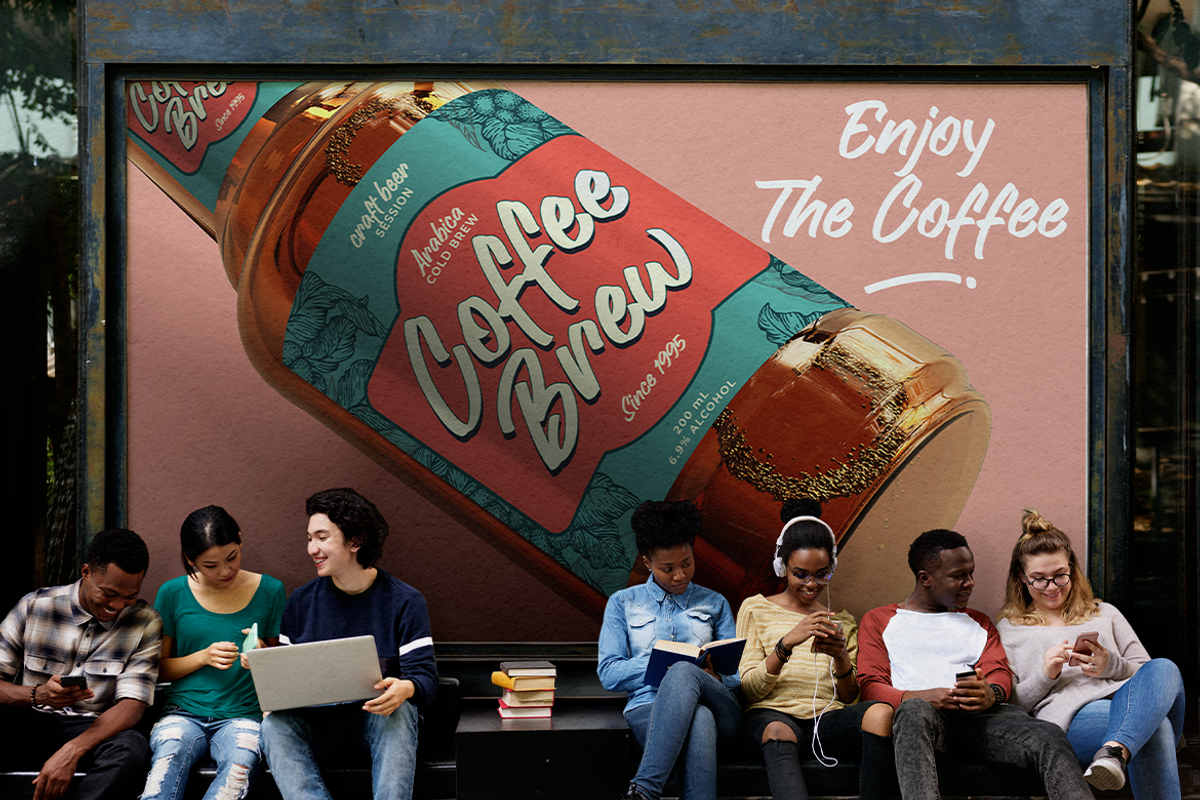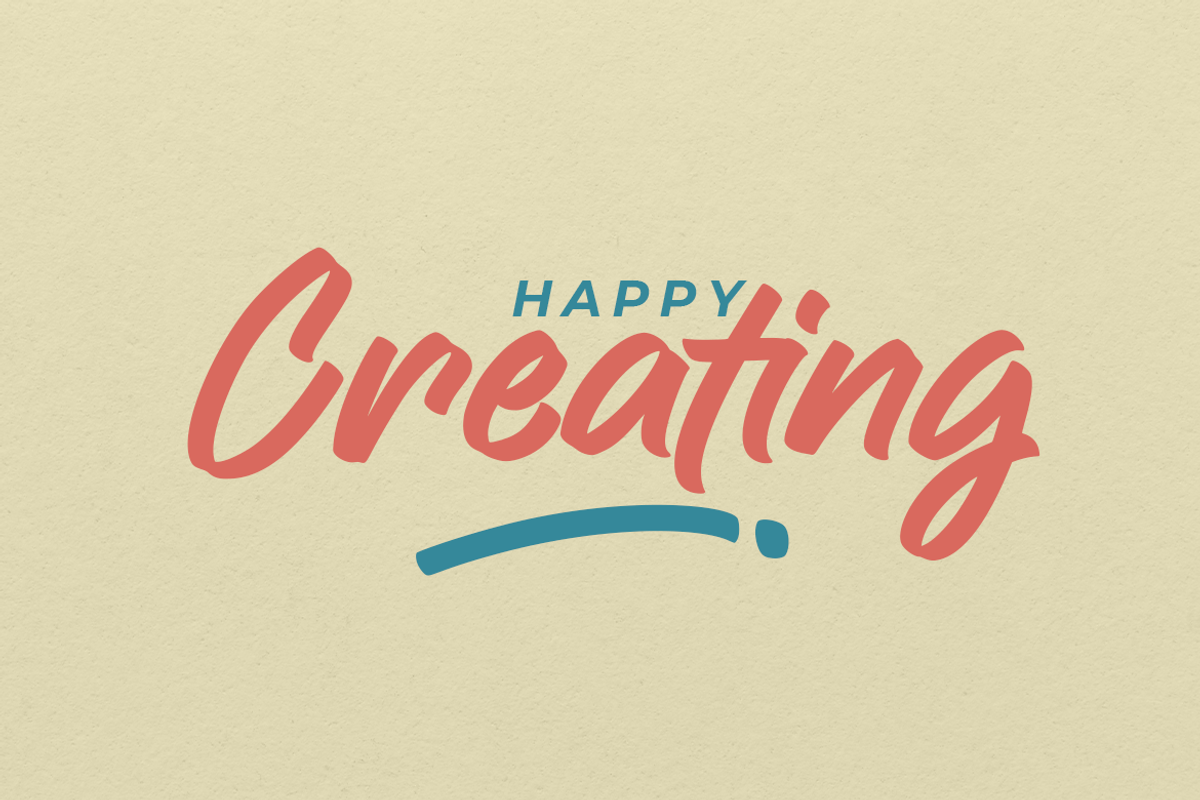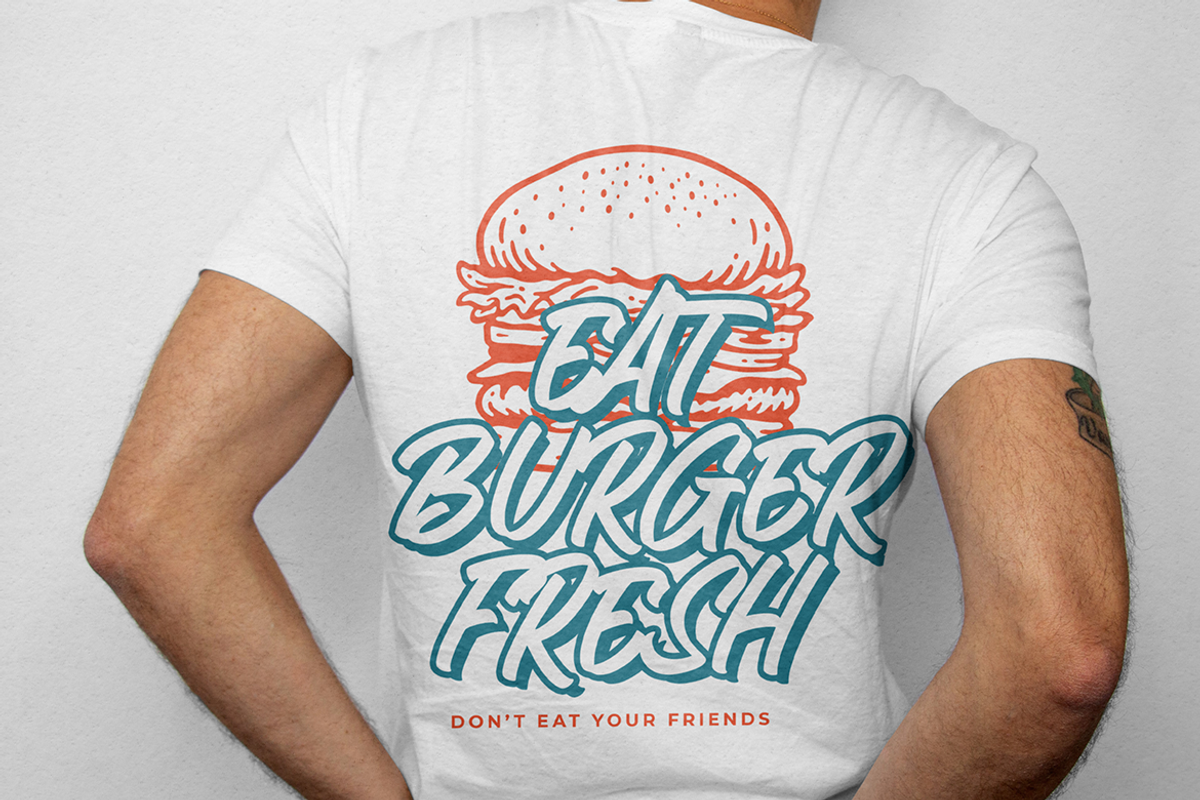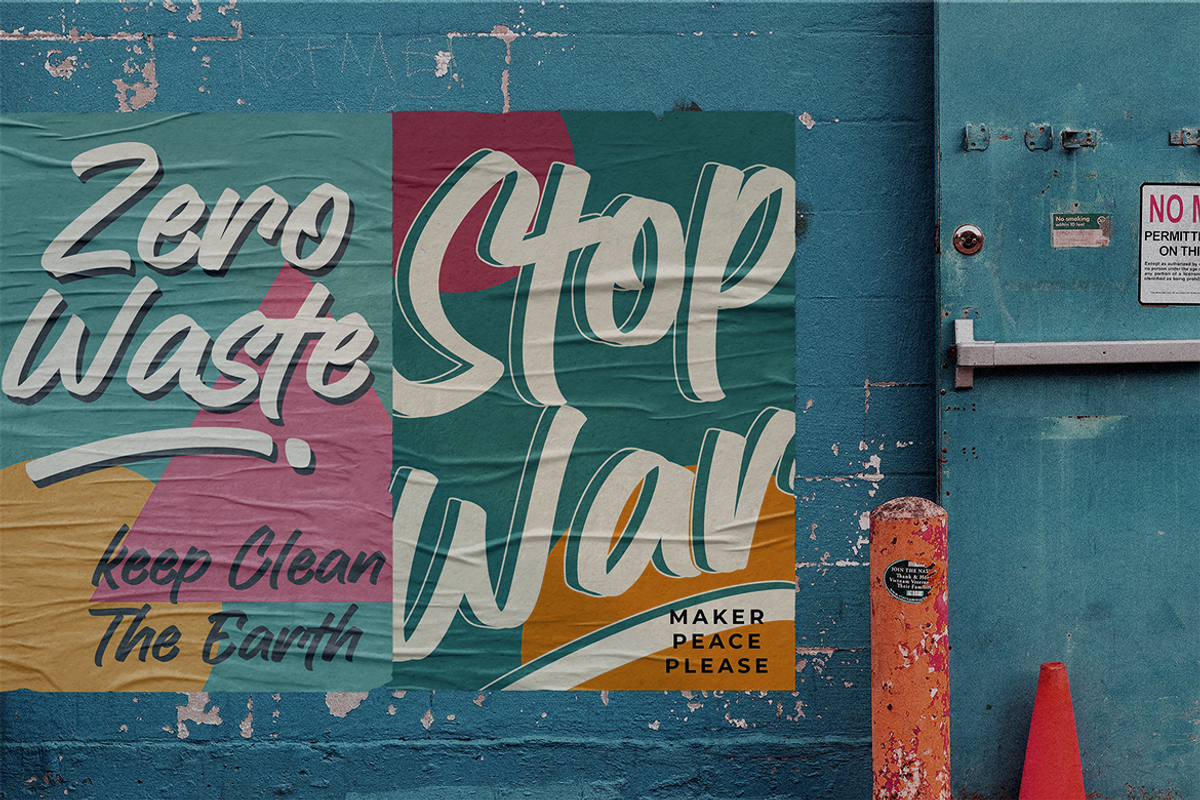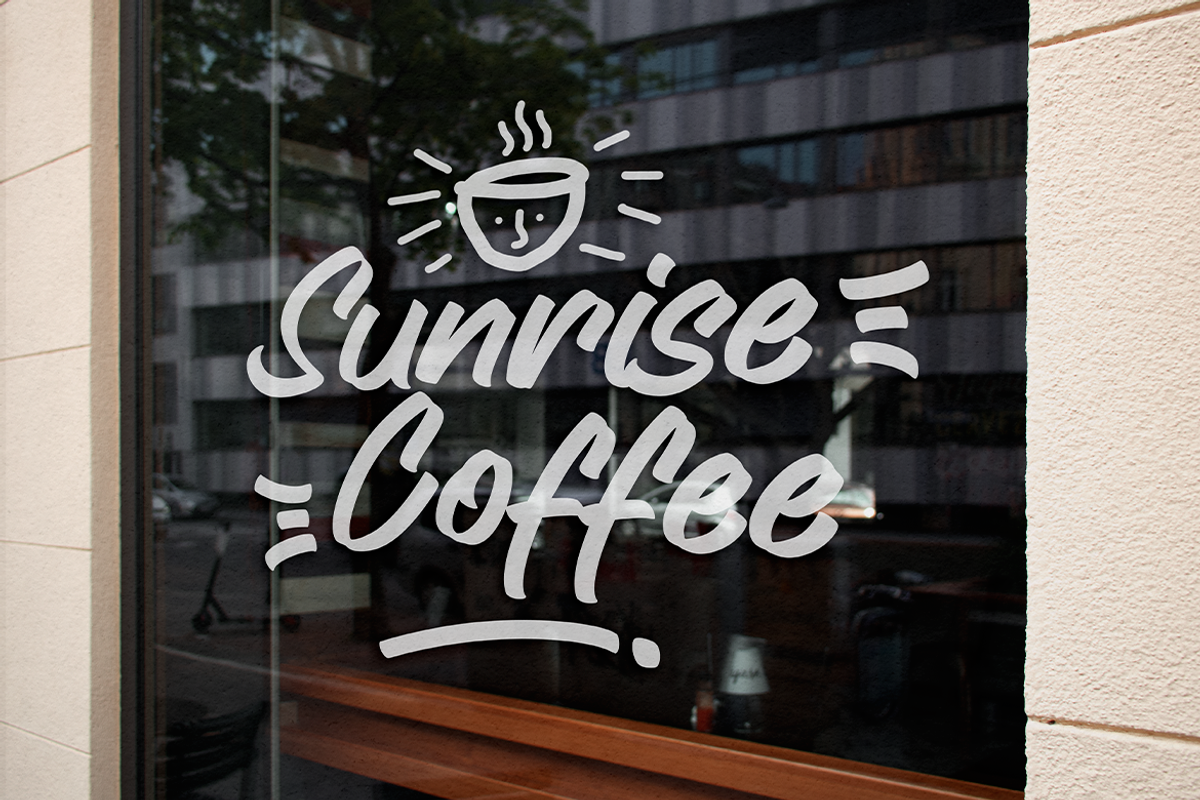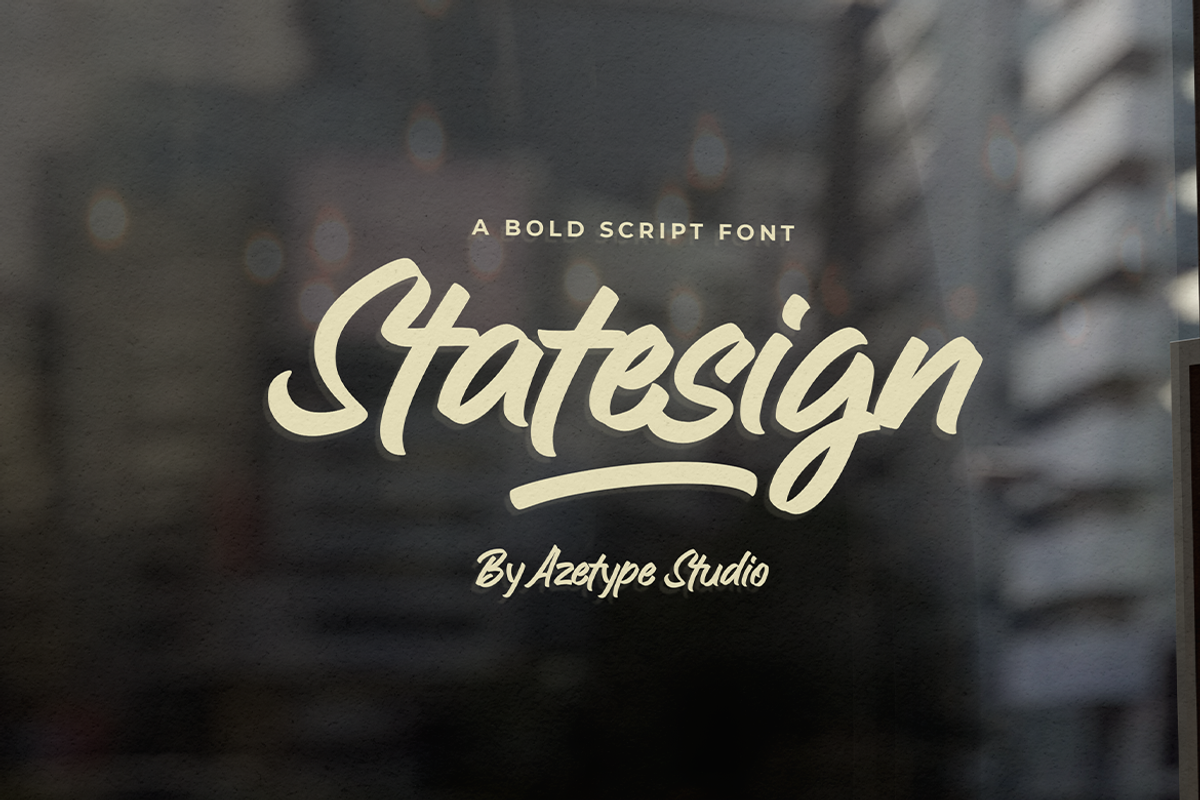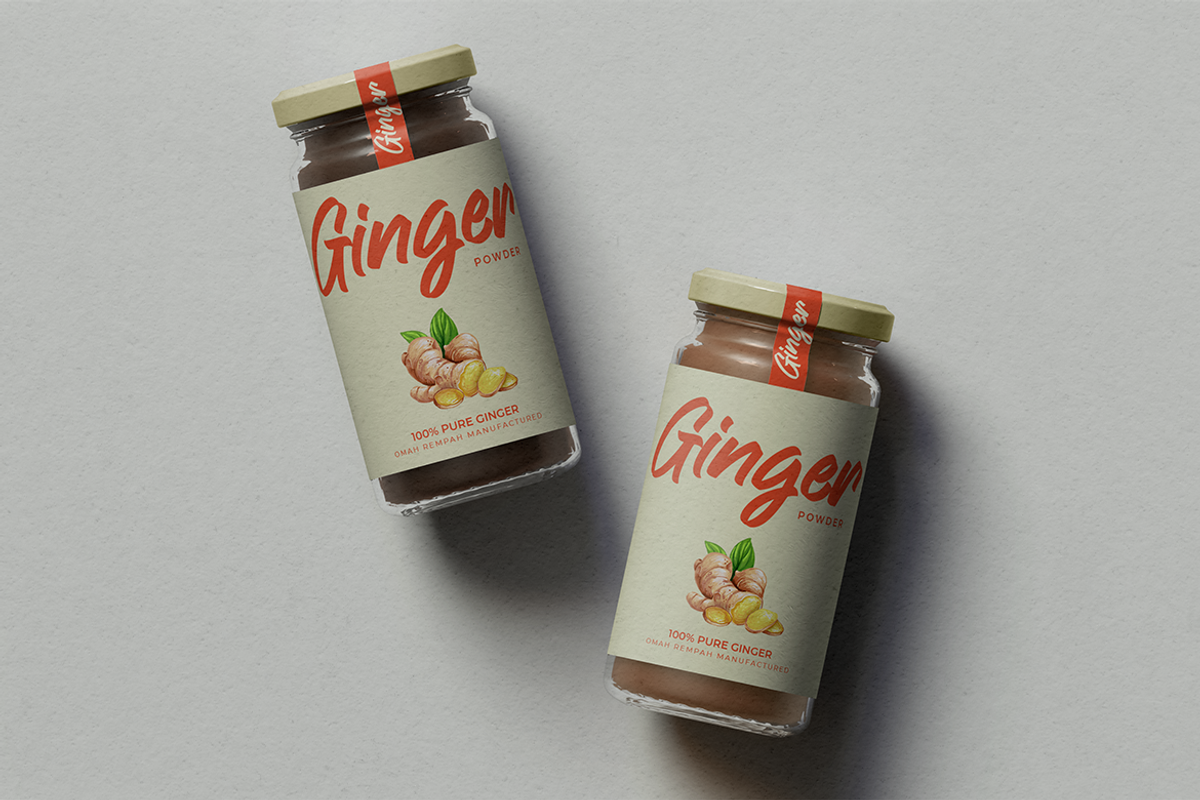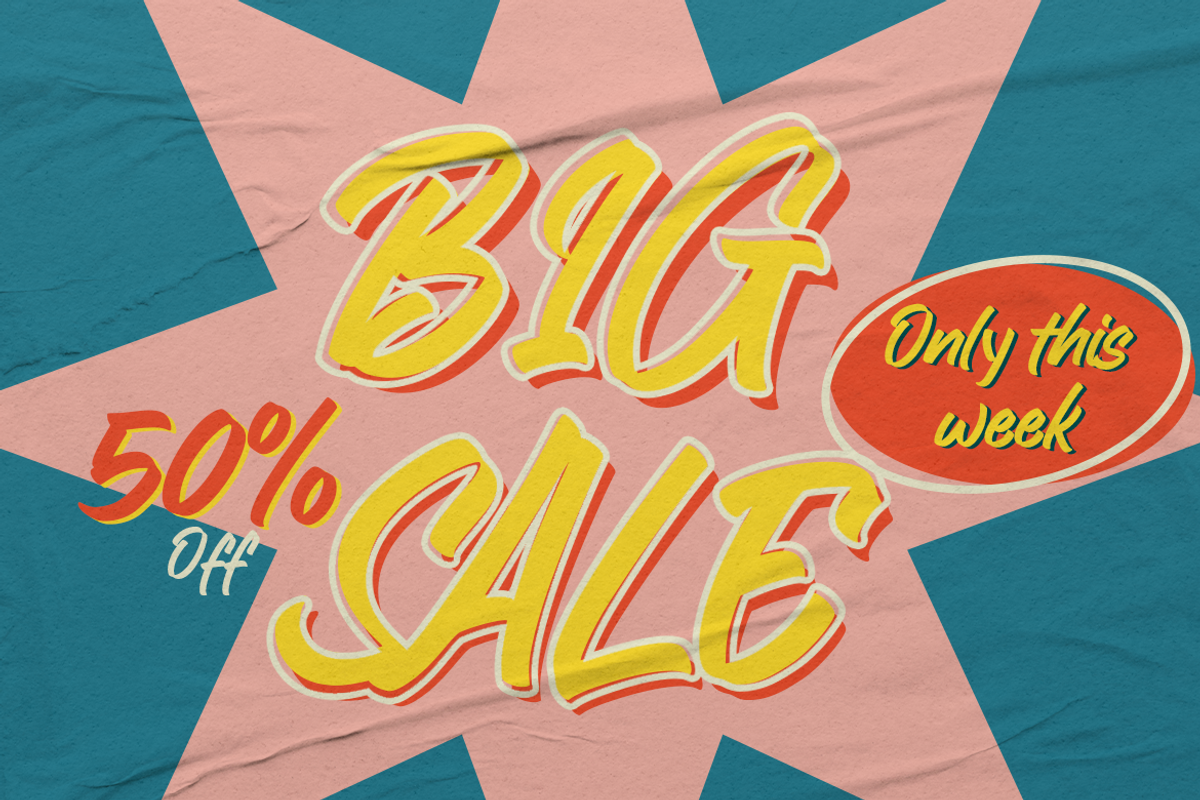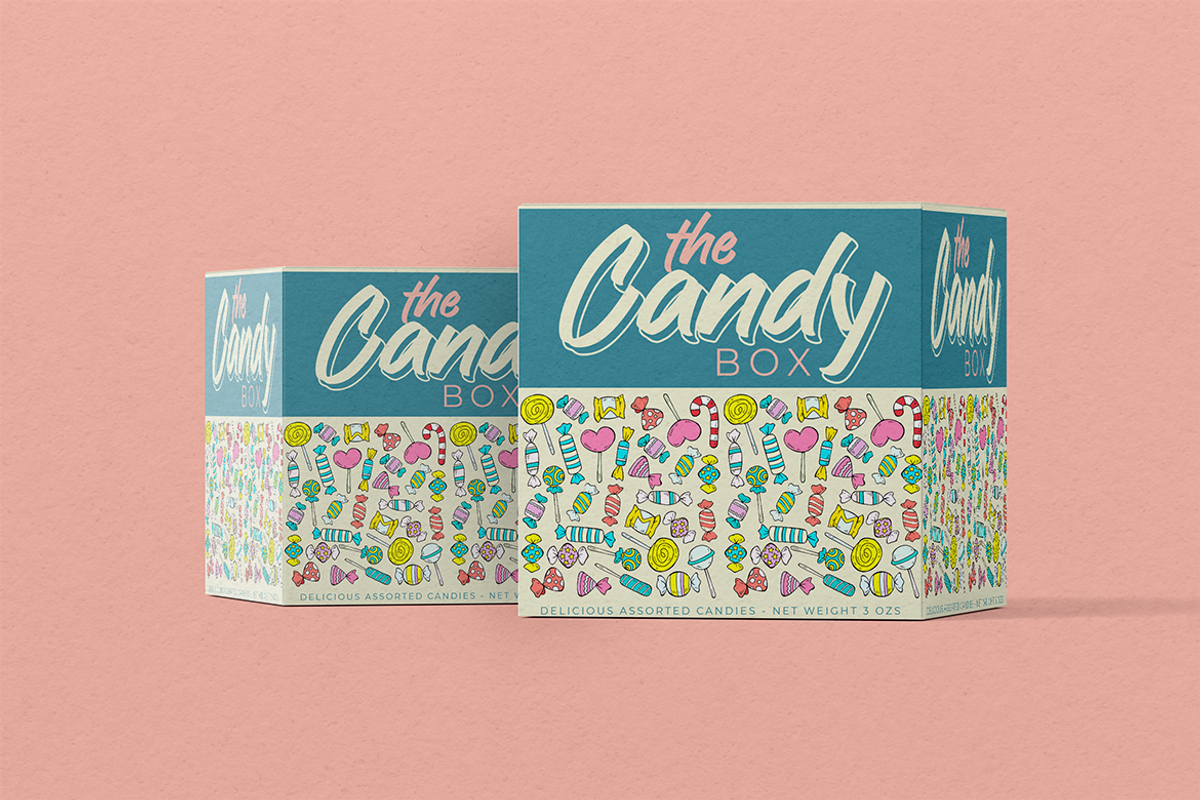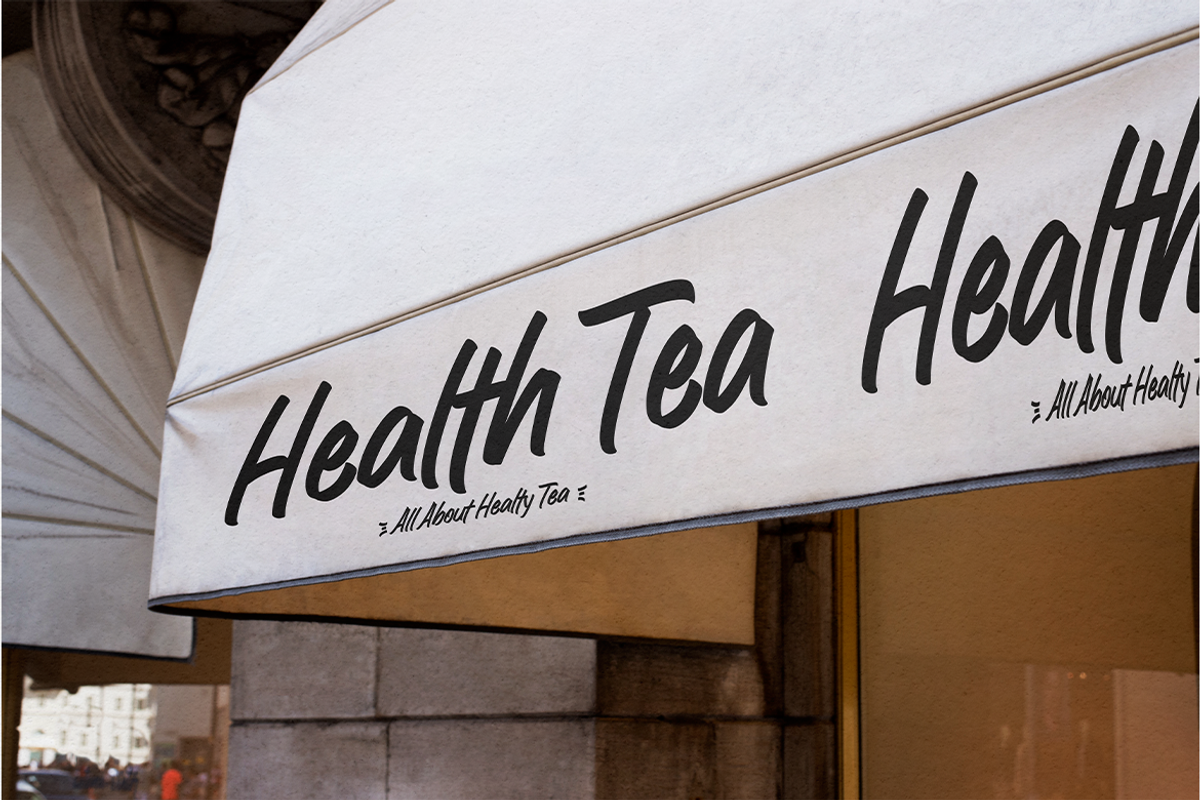
Statesign • A Bold Script
Presenting Statesign! A bold script font with the clean and casual strokes. This font is made with the perfect combining of each character. It looks original and can be used for all your project needs. Each glyph has its own uniqueness and when meeting with others will provide dynamic and pleasing proximity. This font can be used at any time and on any project. You can see in the presentation picture above, Statesign looks casual and clean on design projects.
So, Statesign can't wait to give its touch to all your design projects such as sign painting, quotes, poster design, personal branding, promotional materials, website, logotype, product packaging, etc.
1. Statesign Regular • The first version comes with uppercase, lowercase, some ligatures, numeral, punctuation, symbols, and Standard Latin Multilingual Support (Afrikaans, Albanian, Catalan, Danish, Dutch, English, French, German, Icelandic, Indonesian, Italian, Malay, Norwegian, Portuguese, Spanisch, Swedish, Zulu, and More).
2. Underline Swashes • Just type c_1 until c_7 to feature all.